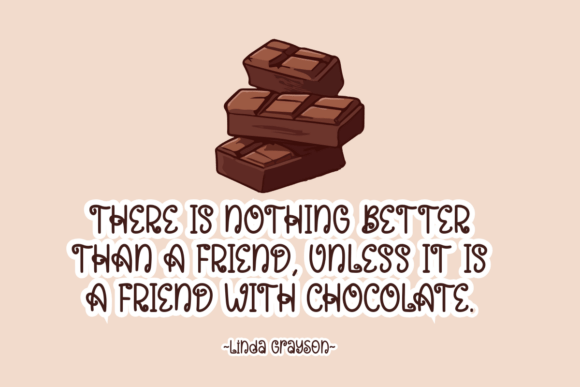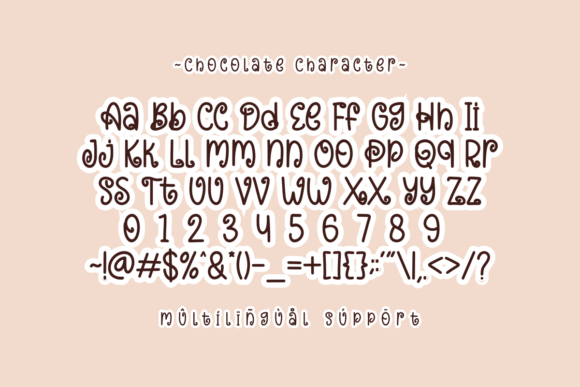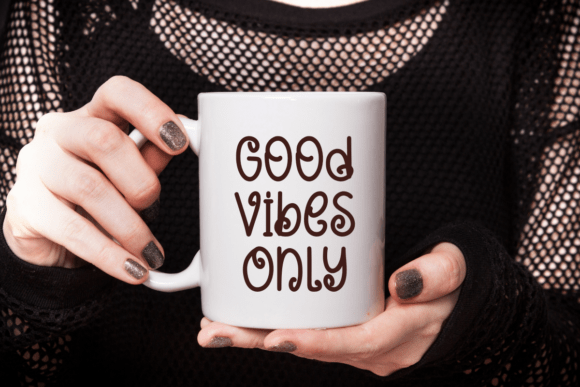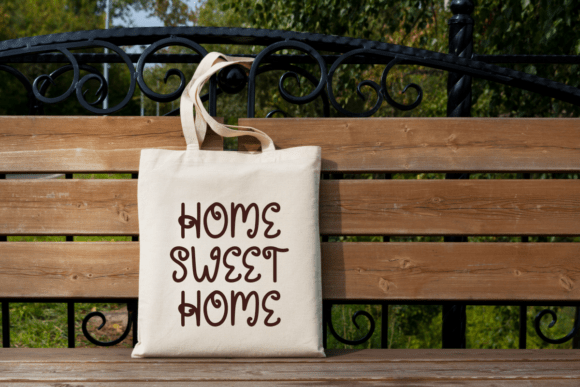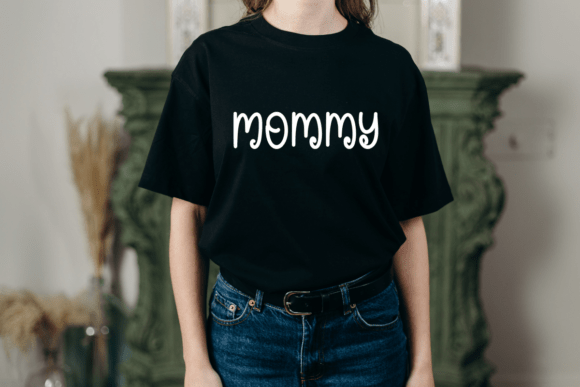
Introducing Chocolate Font: The Perfect Blend of Elegance and Whimsy
Are you a designer or crafter looking for a font that exudes romance, elegance, and playfulness? Look no further than Chocolate Font, a charming handwriting font that is sure to capture the hearts of your audience. With its clean yet whimsical vibe, smooth curves, and hand-drawn feel, Chocolate Font is the perfect choice for a wide range of creative projects.
What Makes Chocolate Font So Special?
Chocolate Font is a versatile font that pairs a modern aesthetic with a touch of playful warmth, making it ideal for romantic designs, wedding invitations, heartfelt branding, and elegant social media graphics. Its unique blend of elegance and whimsy sets it apart from other fonts, making it perfect for creative and love-inspired projects.
Key Features of Chocolate Font
- Clean yet Whimsical Vibe: Chocolate Font has a clean and elegant feel, but also features a whimsical touch that sets it apart from other fonts.
- Smooth Curves: The font features smooth, flowing curves that give it a hand-drawn feel.
- Handwritten Style: Chocolate Font has a handwritten style that gives it a personal and intimate feel.
- Versatile: The font is versatile and can be used for a wide range of creative projects, from romantic designs to elegant social media graphics.
Perfect for Romantic Designs
Chocolate Font is perfect for romantic designs, such as wedding invitations, Valentine’s Day cards, and other love-inspired projects. Its elegant and whimsical feel makes it ideal for capturing the emotions and sentiment of these special occasions.
Imagine using Chocolate Font to create a beautiful wedding invitation that sets the tone for a romantic and unforgettable day. The font’s smooth curves and hand-drawn feel will add a touch of elegance and sophistication to your design, making it truly unforgettable.
Ideal for Heartfelt Branding
Chocolate Font is also perfect for heartfelt branding, such as for businesses that specialize in love and relationship-related services. The font’s warm and playful feel makes it ideal for creating a brand identity that is approachable, friendly, and inviting.
Whether you’re creating a logo, business card, or website, Chocolate Font is sure to add a touch of warmth and personality to your brand. Its unique blend of elegance and whimsy will help your brand stand out from the crowd and connect with your audience on a deeper level.
Elegant Social Media Graphics
Chocolate Font is also perfect for creating elegant social media graphics, such as Instagram posts, Facebook graphics, and Pinterest pins. The font’s clean and modern feel makes it ideal for creating graphics that are both visually appealing and engaging.
Imagine using Chocolate Font to create a beautiful Instagram post that showcases your latest product or service. The font’s smooth curves and hand-drawn feel will add a touch of elegance and sophistication to your design, making it truly stand out in a crowded feed.
Tips for Using Chocolate Font
- Pair with Other Fonts: Chocolate Font pairs well with other fonts, such as sans-serif fonts, to create a unique and visually appealing design.
- Use for Headings and Titles: Chocolate Font is perfect for headings and titles, where its elegant and whimsical feel can really shine.
- Add a Personal Touch: Use Chocolate Font to add a personal touch to your designs, such as by adding handwritten notes or signatures.
Chocolate Font is a charming handwriting font that is perfect for romantic designs, wedding invitations, heartfelt branding, and elegant social media graphics. Its unique blend of elegance and whimsy makes it a versatile font that can be used for a wide range of creative projects.